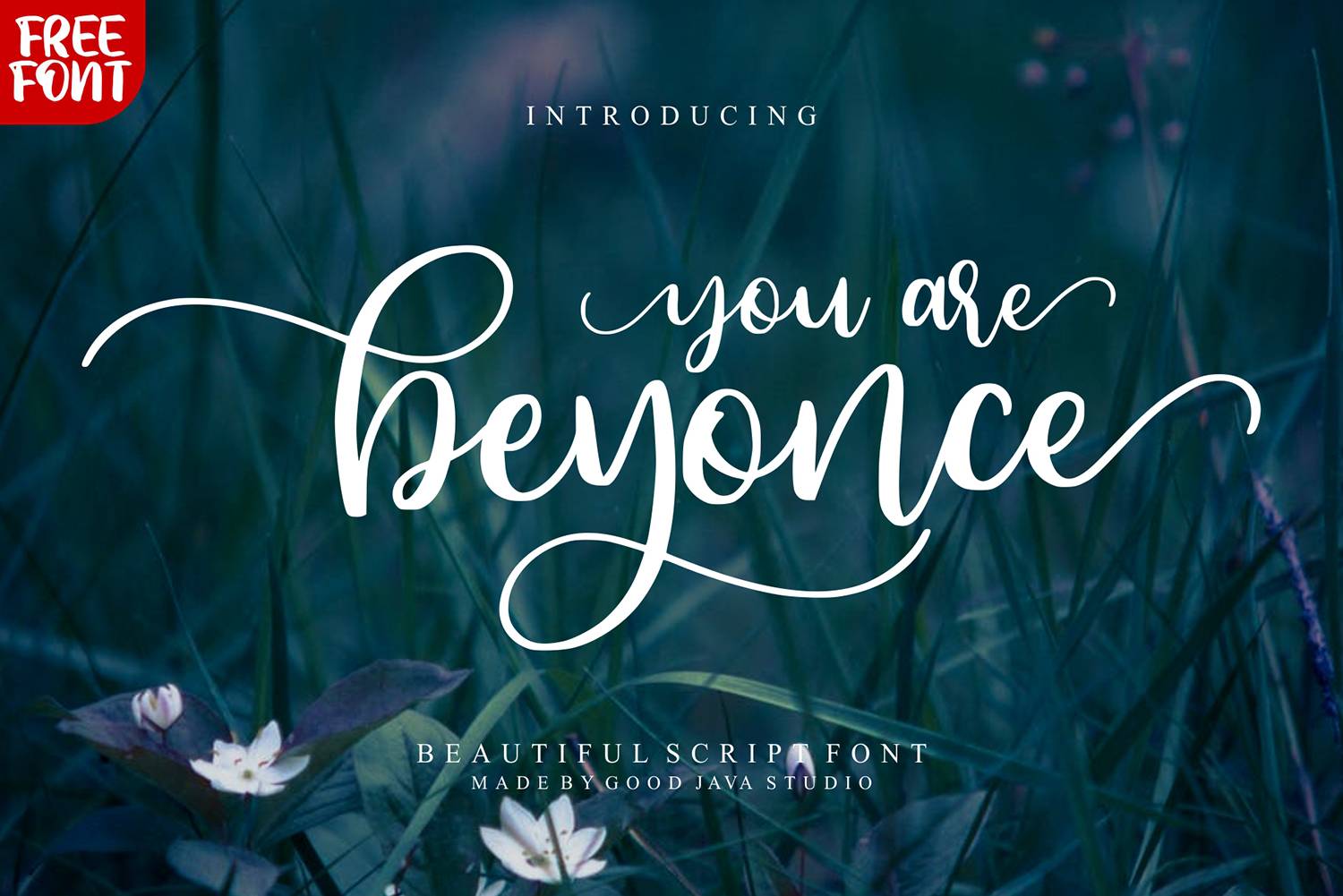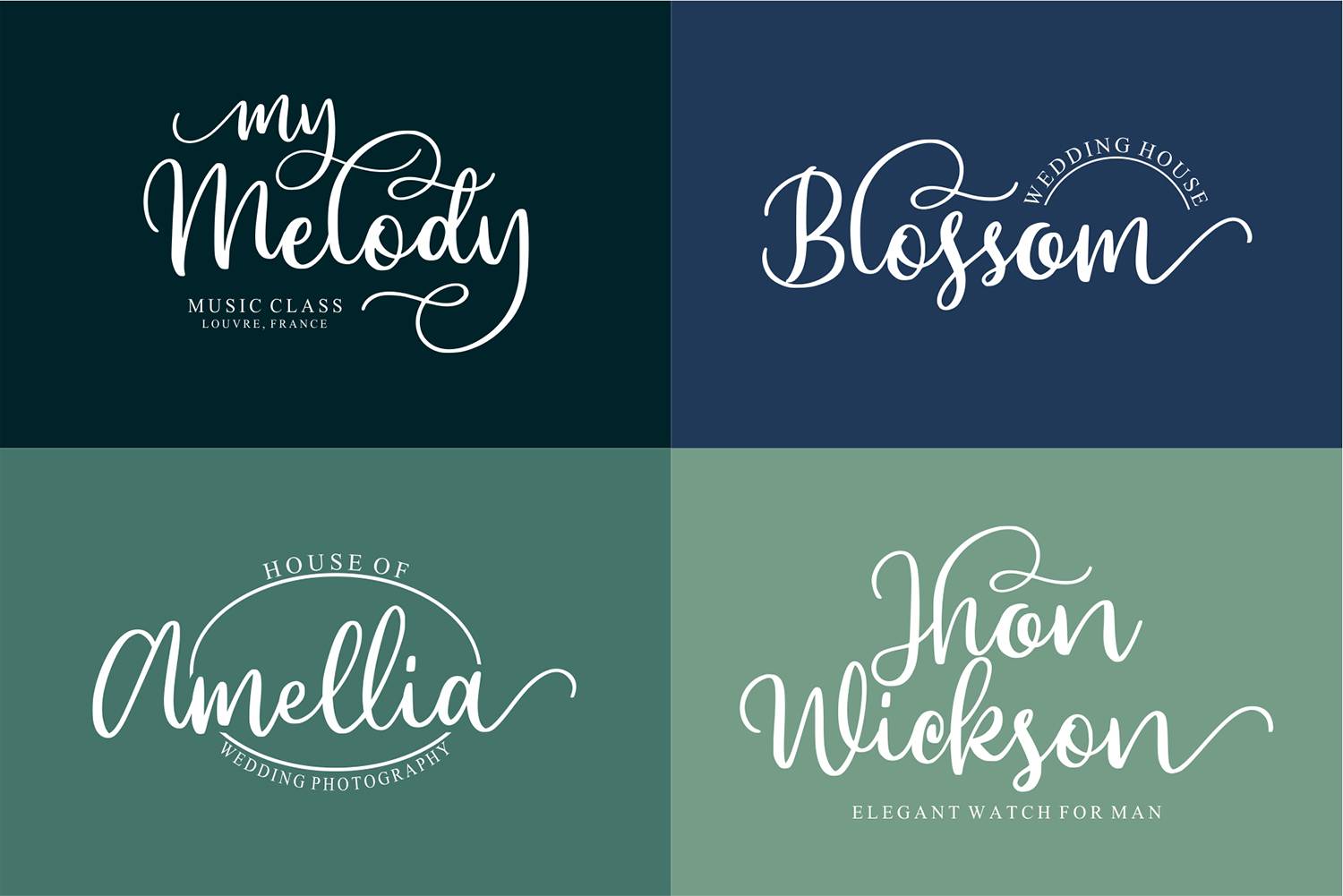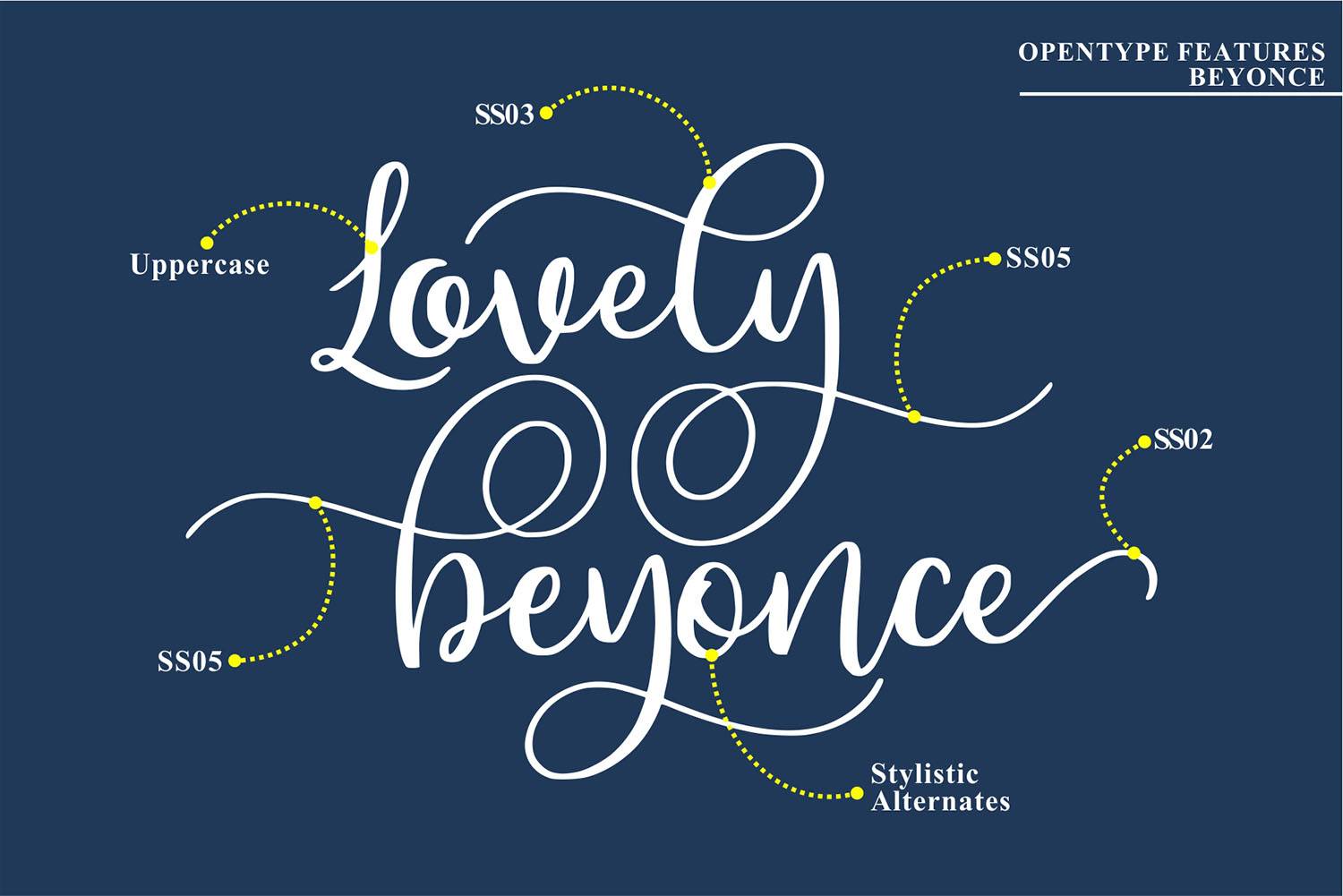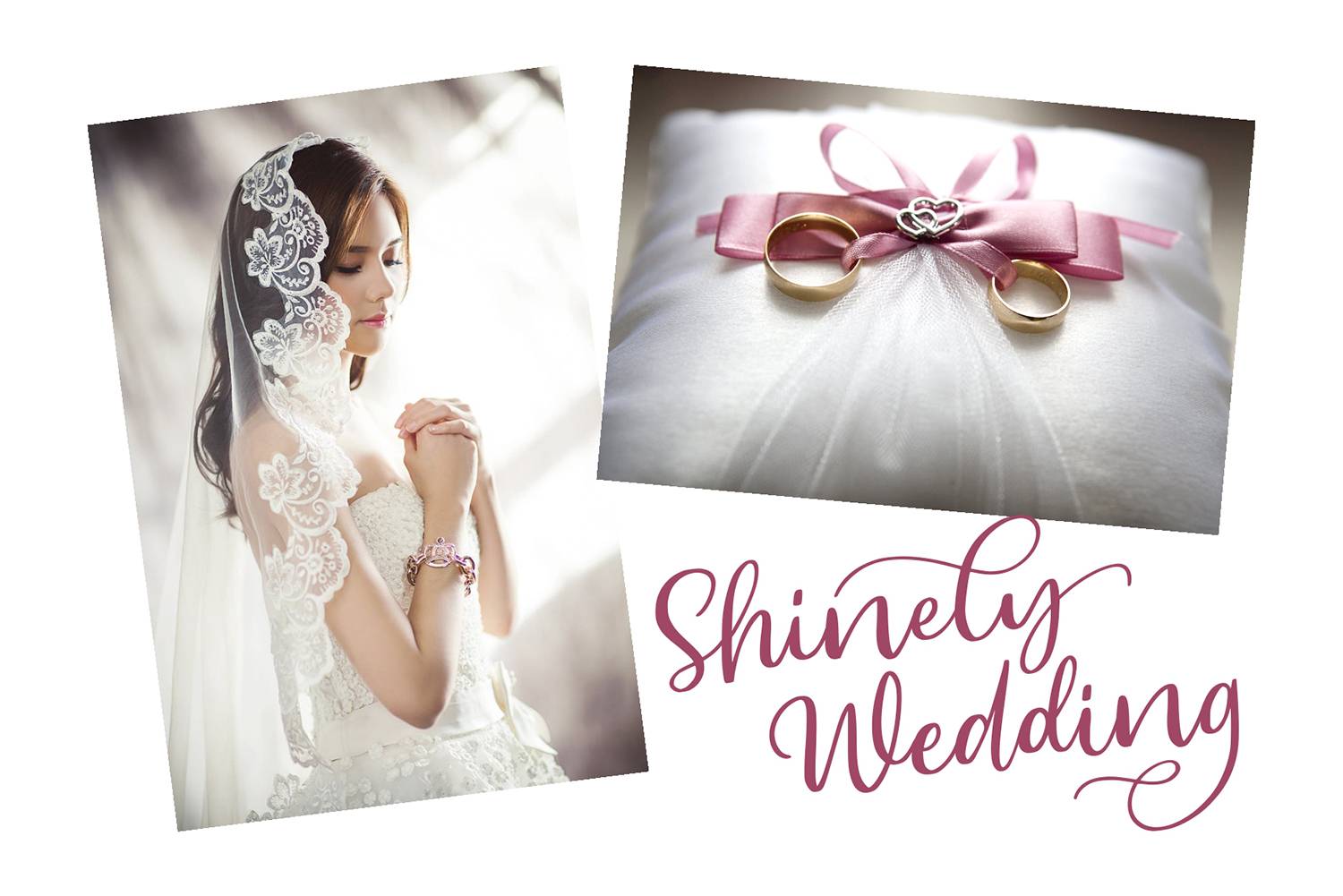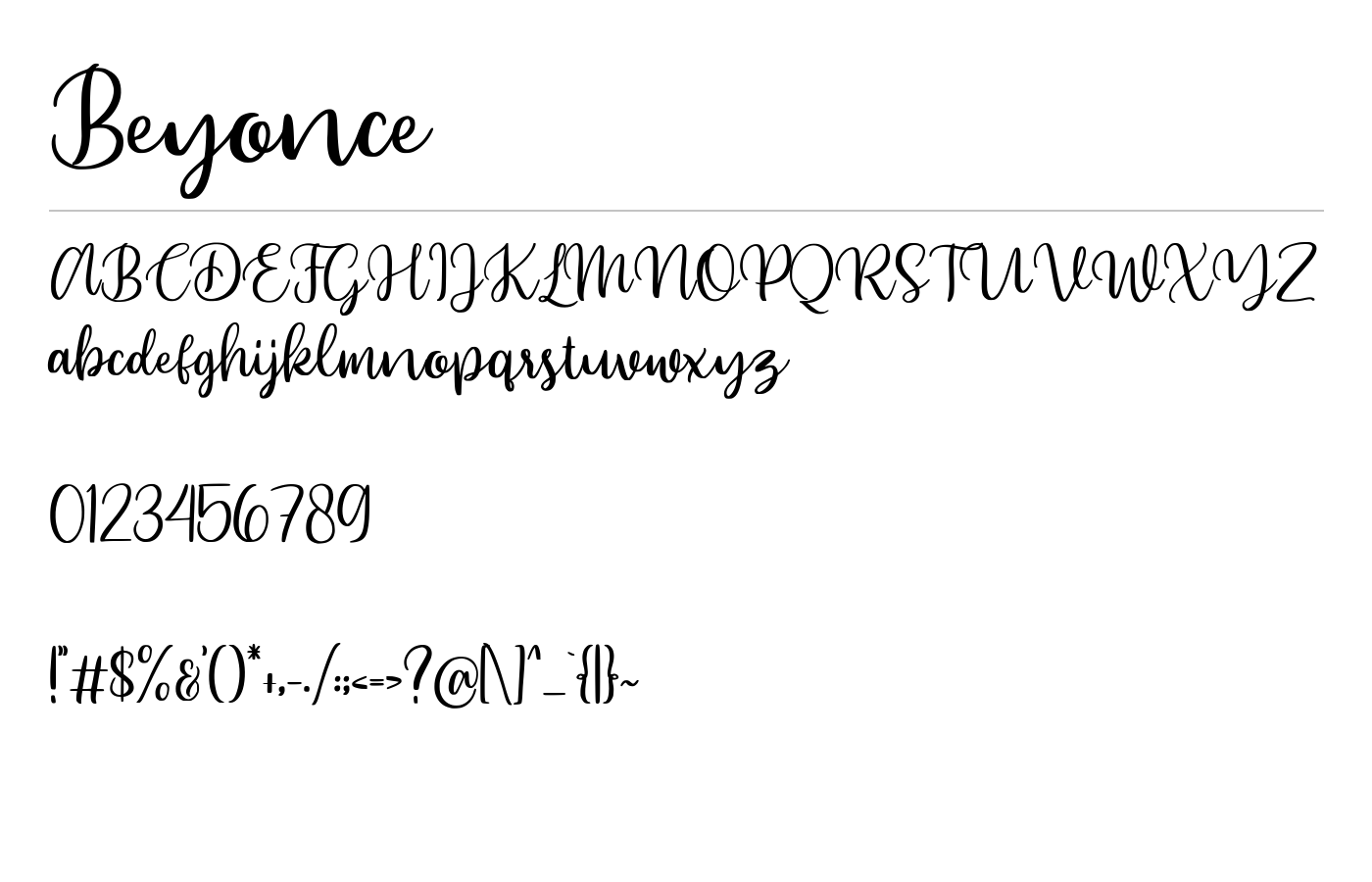
Beyonce Font is an elegant script typeface with a playful yet refined personality, featuring smooth, flowing strokes and a moderate contrast that gives it a hand-lettered charm. Its tall x-height and clean, single-story letterforms make it readable while maintaining a stylish flair, perfect for fashion branding, invitations, and feminine logos. This font works well in creative projects where a touch of sophistication and warmth is desired.
Beyonce Font
About Beyonce Font
| Font family | Beyonce Font |
| Designer | Good Java Studio |